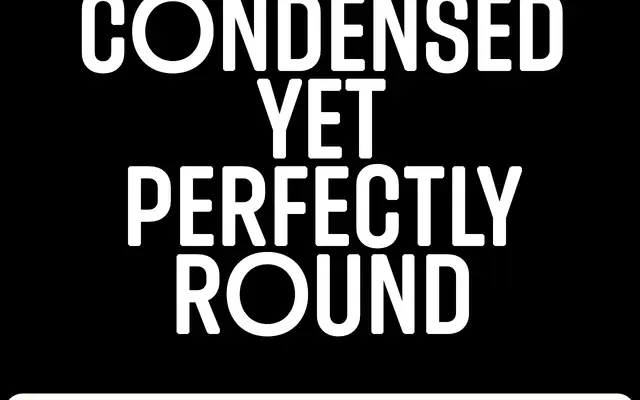
Round Condensed
Bureau Brut · Yoann Minet · 2024
Round Condensed specimen from Bureau Brut
A condensed companion to Round, designed so that circular letterforms retain their full width while every other character narrows, creating graphic tension between round and straight.
Designed by Yoann Minet and released in 2024, Round Condensed keeps the circular letters of Round at their original size, allowing them to stand out against the narrowed characters around them. The family runs across seven weights from Light to Black, each with an italic, giving 14 styles in total. Intended for display use in titles, editorial layouts and visual identities, it is built to work in direct combination with Round, sharing the same circular forms across both families for mixed-size compositions.
A geometric sans built around circular letter forms that retain full width even within condensed proportions, with straight strokes crossing circular shapes to create a structural tension between geometry and fluidity.